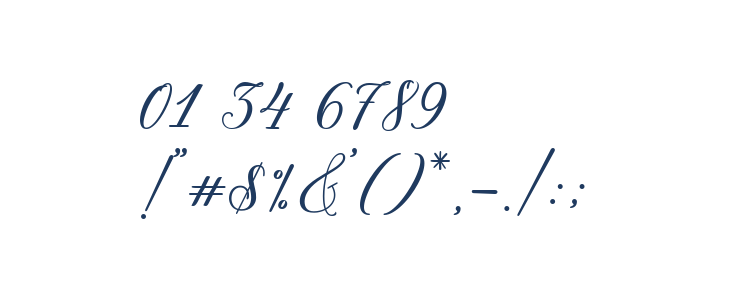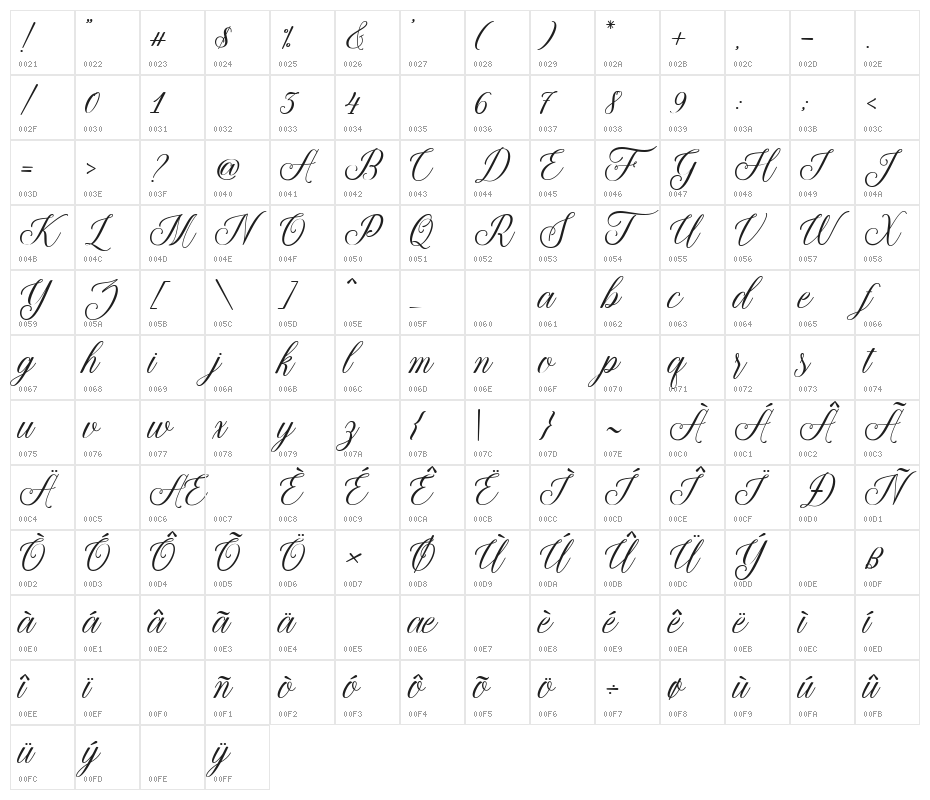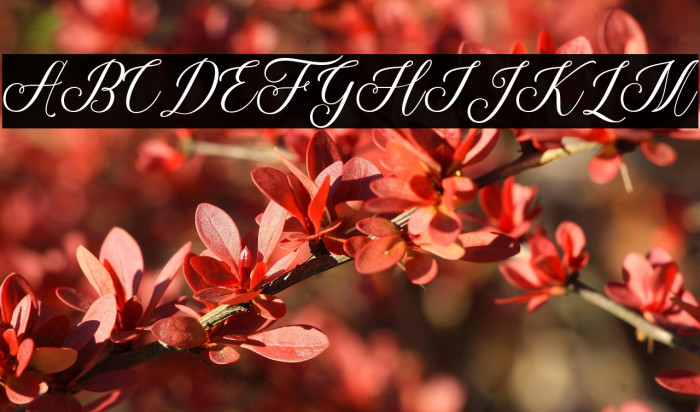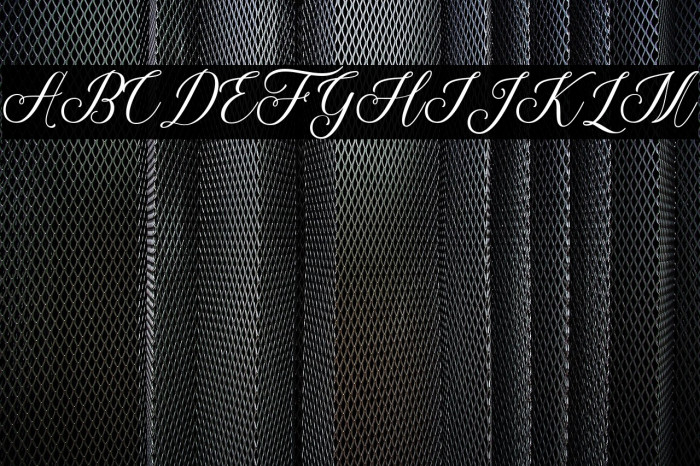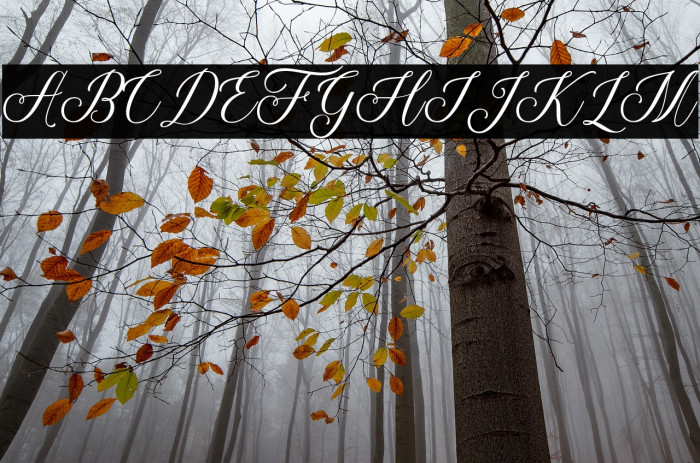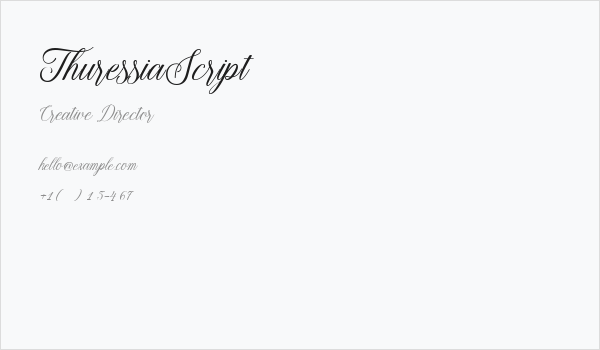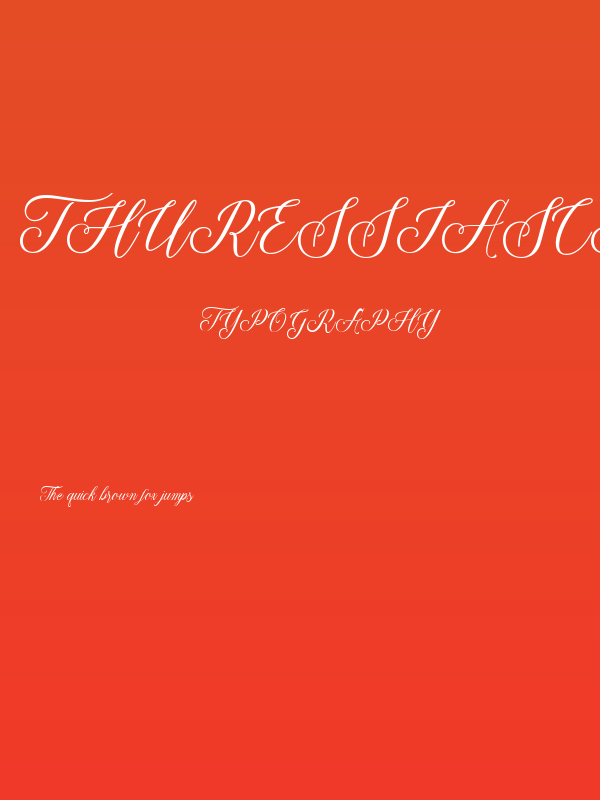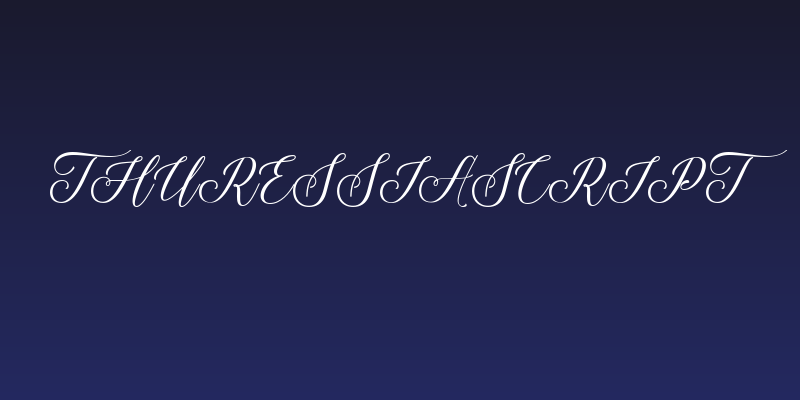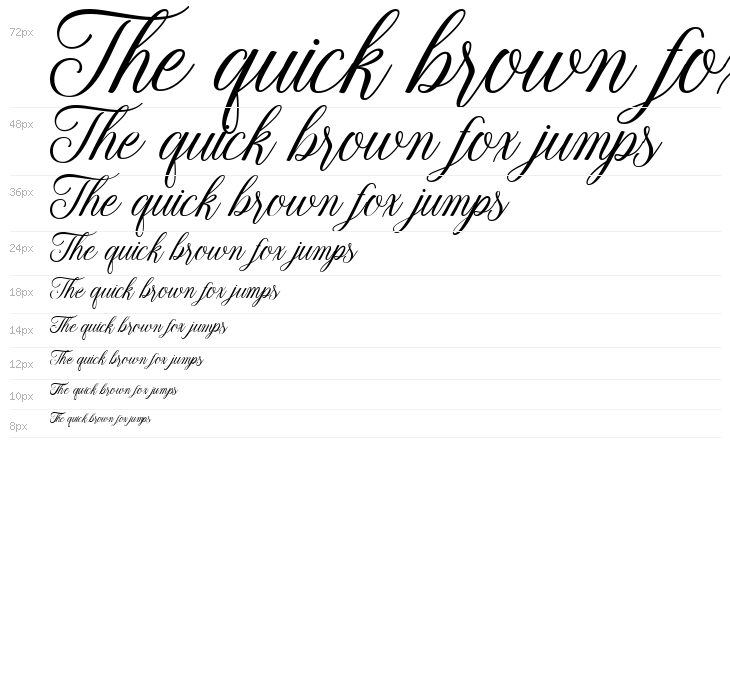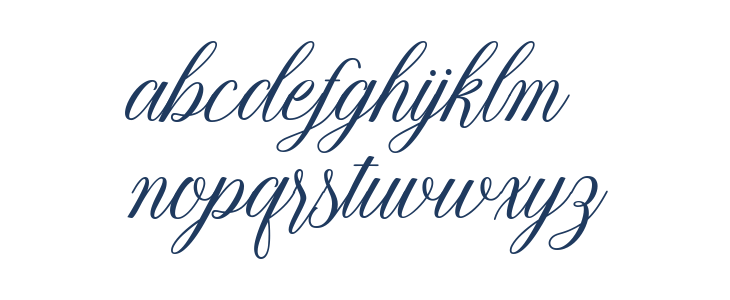
ThuressiaScript Font
ThuressiaScript Description
This elegant script font features flowing, cursive letters with a classic and sophisticated appearance. The uppercase letters are adorned with graceful loops and swashes, while the lowercase letters maintain a smooth and connected style, enhancing readability. The numerals and special characters are designed to complement the overall aesthetic, with a consistent stroke width that adds to the font's cohesive look. The font's delicate curves and refined details make it suitable for formal and decorative applications, offering a timeless charm that is both stylish and versatile.
| Overall Style | Classic |
| Use Case | Logos, Invitations, Decorative text |
| Proposed Projects | Ideal for wedding invitations, elegant branding, greeting cards, and luxury packaging. |